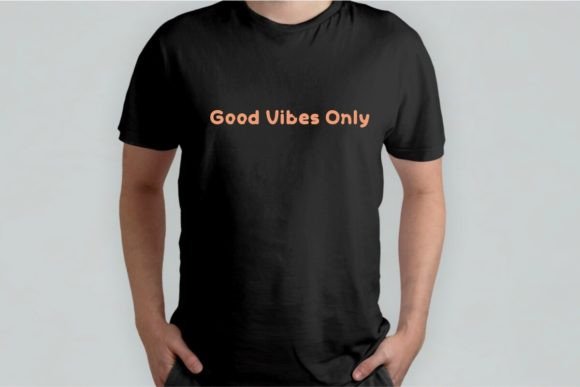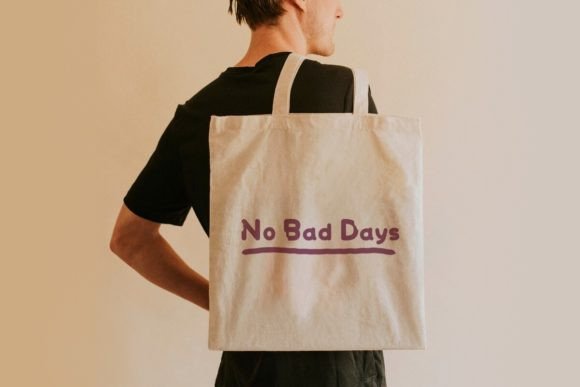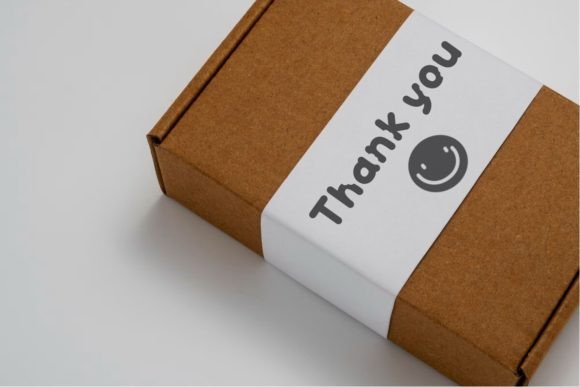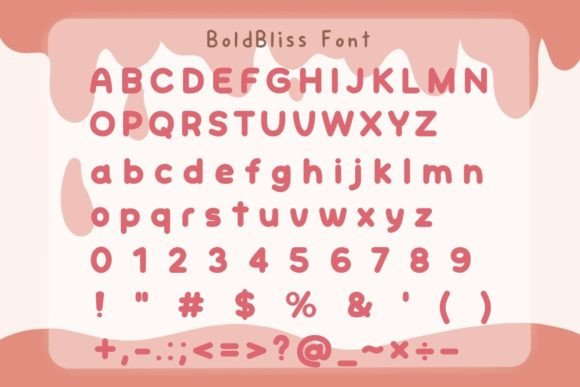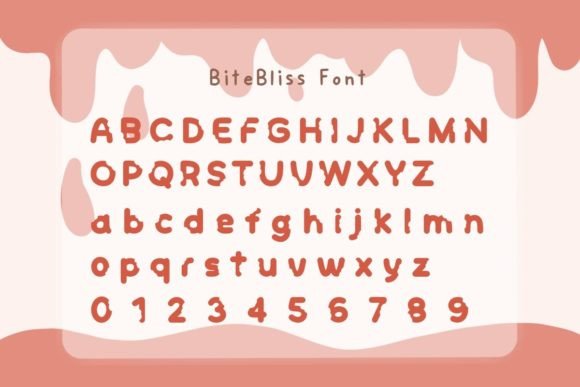
The Perfect Blend of Style and Playfulness: Introducing Boldbliss & Bitebliss Font
As a designer, have you ever found yourself staring at a blank canvas, searching for the perfect font to bring your creative vision to life? You’re not alone. We’ve all been there, trying to find that elusive combination of style and personality that makes a design truly pop. And that’s exactly where the Boldbliss & Bitebliss Font comes in – a game-changing font that’s about to revolutionize the way you create.
This dynamic font boasts bold, rounded characters that exude a sense of minimalistic chic, making it the perfect addition to any design project. And with its playful bite mark version, you can add an extra layer of whimsy and fun to your creations. Whether you’re designing banners, content, or even glasses, the Boldbliss & Bitebliss Font is sure to bring a smile to your face and a touch of sophistication to your designs.
- Font Family: Boldbliss & Bitebliss – a unique, hand-drawn sans-serif font with bold and bite-sized variations.
- Character Set: Supports a wide range of languages, including Latin, Cyrillic, and Greek alphabets, with over 1,000 glyphs.
- Unique Characteristics: Features a distinctive, hand-drawn feel with subtle imperfections, giving it a personal and human touch.
Boldbliss & Bitebliss Font Review
As a designer, I’ve had the chance to work with the Boldbliss & Bitebliss Font, and I must say it’s been an interesting experience. Here’s my honest review:
- The font’s bold and playful style makes it perfect for modern branding and marketing materials.
- It’s highly legible, even at small font sizes, which is a must for any font.
- The font’s versatility allows it to be used for both digital and print media.
- The designer has done a great job in balancing the boldness and playfulness of the font.
- The font lacks a true italic style, which can make it difficult to use in situations where italics are required.
- The font’s bold weight can be overwhelming if used excessively, so it’s essential to use it in moderation.
- The font’s sans-serif style may not be suitable for formal or traditional designs.
Overall, I think the Boldbliss & Bitebliss Font is a solid choice for modern designers who want a bold and playful font. However, it may not be the best fit for all design projects. With some careful usage and consideration of its limitations, this font can be a great addition to any designer’s toolkit.
Use Boldbliss & Bitebliss Font for bold, eye-catching headlines and titles.
Combine with a neutral background to create a striking visual effect.
Use in creative industries such as graphic design, advertising, and publishing.